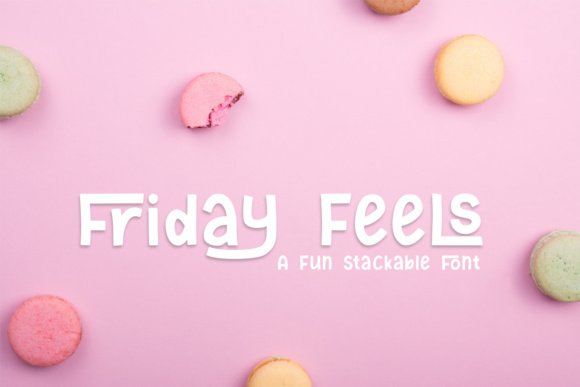
Enter the Friday Feels Font, a versatile and fun font designed to bring a smile to your face and a spring to your step. With multilingual support, alternates, and plenty of ligatures, this font is the perfect companion for any design project. Whether you’re working on a branding project, a marketing campaign, or simply a personal passion project, the Friday Feels Font is here to help you bring your vision to life.
Key Features of Friday Feels Font
- Unique Characteristics: The Friday Feels Font features a playful, handwritten style with irregular letterforms, giving it a friendly and approachable feel.
Friday Feels Font Review
I recently had the chance to work with the Friday Feels Font, and I must say it’s an interesting addition to any designer’s toolkit. ✨ The font’s whimsical feel and playful personality make it perfect for projects that need a touch of warmth and approachability.
Here are some of the things I liked about the font:
- ✨ Unique and expressive character set that brings a lot of personality to text
- ✨ Perfect for social media, blog posts, or other online content that needs a friendly tone
- ✨ Great for highlighting important information or adding emphasis to key points
However, I did encounter a few limitations:
- ⚠️ Limited font sizes and styles, which can make it less versatile for certain projects
- ⚠️ Not ideal for professional or formal content, as it may come across as too casual
- ⚠️ Some users may find the font’s irregularities distracting or hard to read
Overall, I think the Friday Feels Font is a great addition to any designer’s toolkit, but it’s essential to use it thoughtfully and consider the project’s goals and audience.
The “Friday Feels Font” is perfect for creating fun and playful content, such as:
– Social media posts
– Blog headlines
– Infographics
– Marketing materials
To get the most out of the “Friday Feels Font”, try the following:
– Use it in combination with bright and bold colors